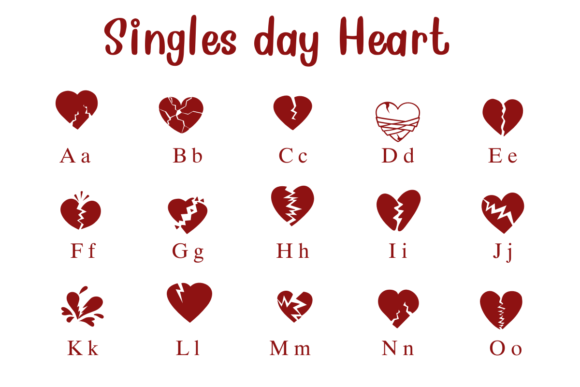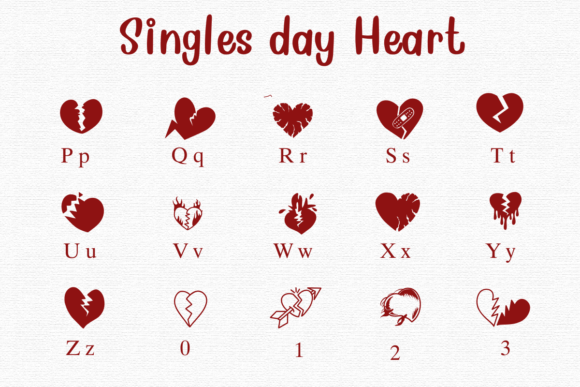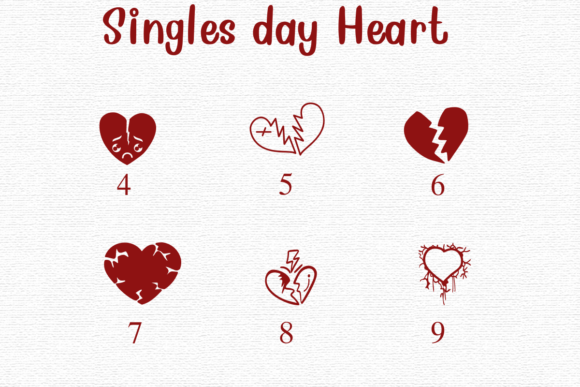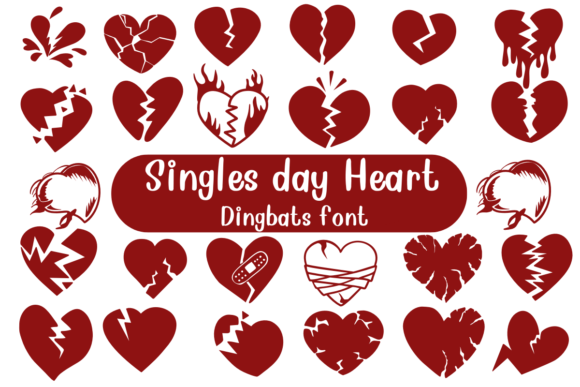
Introduction to Singles Day Heart Font
Singles Day Heart is a unique dingbat font with a fun theme.
This font can enhance your creative projects such as wedding invitations, DIY, crafts, decorations, logos, and many other creative ideas .
Key Features of Singles Day Heart Font
Why Choose Singles Day Heart Font?
Singles Day Heart Font offers exceptional quality and versatility, making it a valuable addition to your design toolkit. Whether you’re creating for personal projects or commercial use, Singles Day Heart Font delivers professional results.